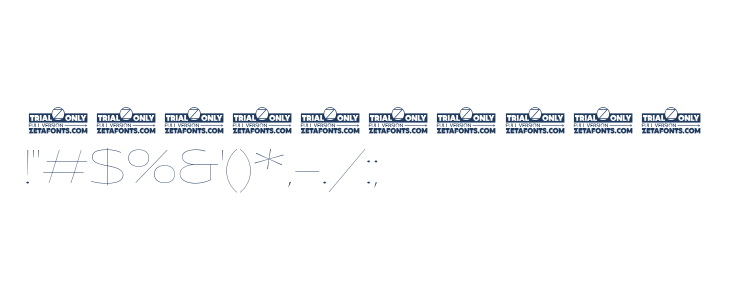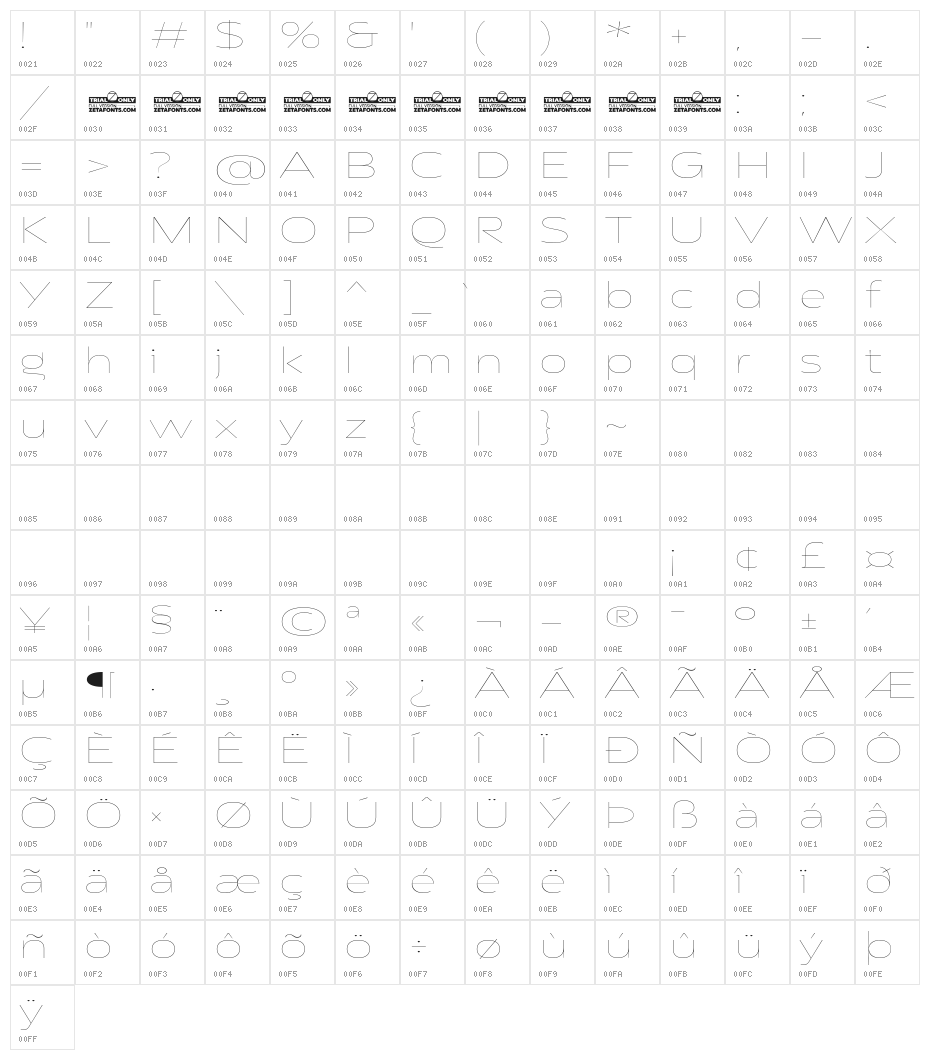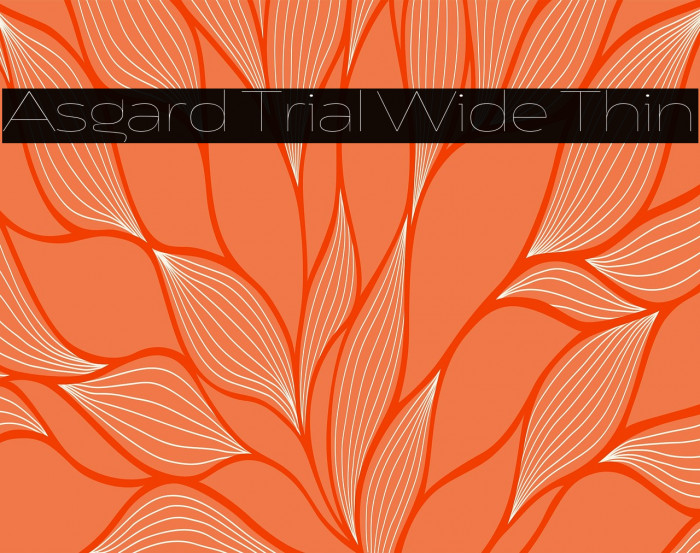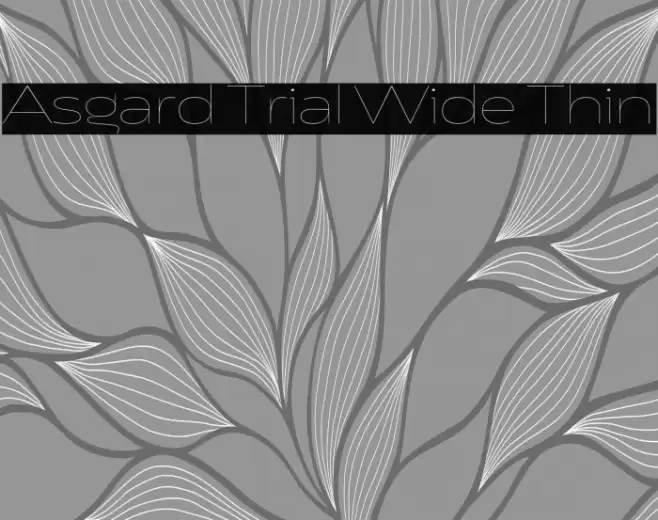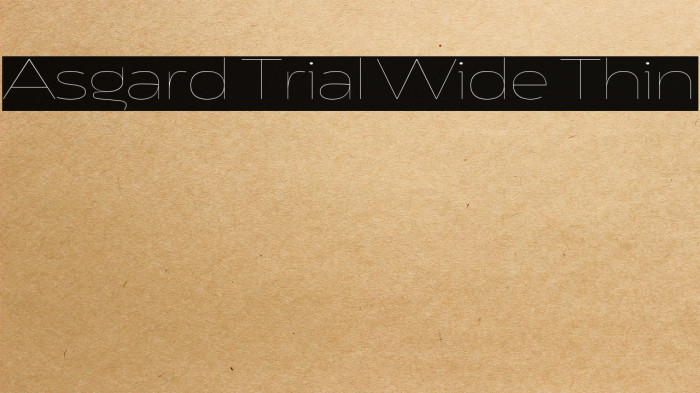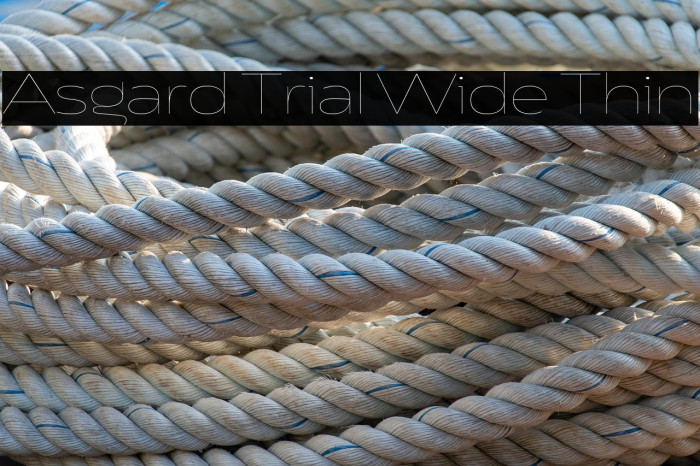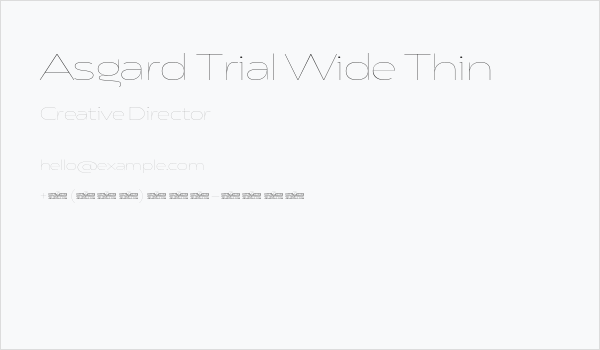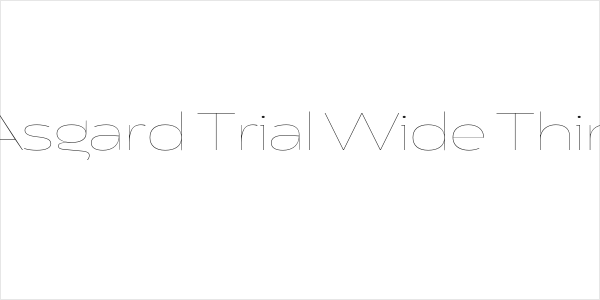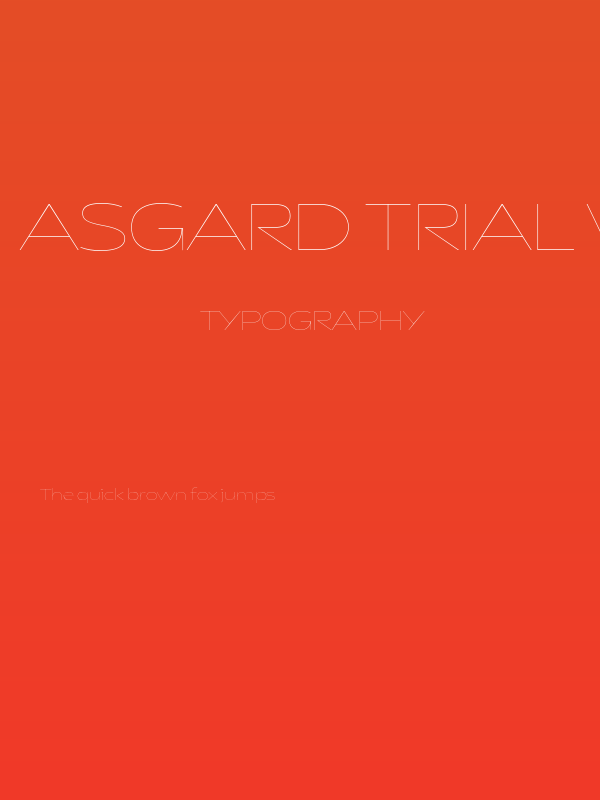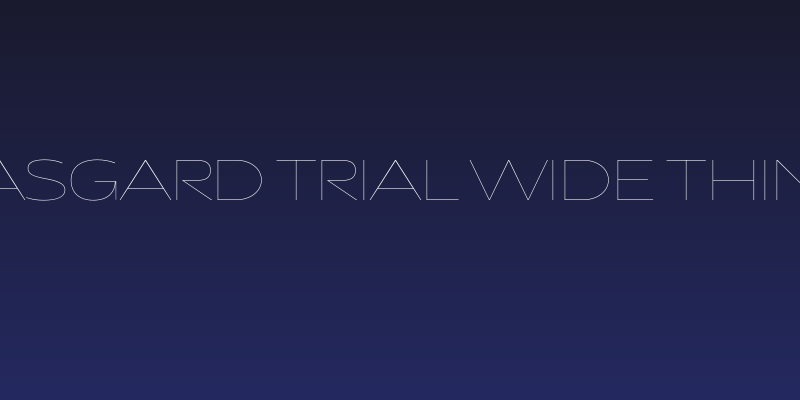
Asgard Trial Wide Thin Font
Asgard Trial Wide Thin Description
This font features a sleek, modern design with thin, elongated letterforms that convey a sense of elegance and sophistication. The characters are wide and spacious, providing a clean and airy aesthetic. The uppercase and lowercase letters maintain a consistent style, with smooth curves and sharp angles that enhance readability. The numerals and special characters are designed to match the overall minimalist theme, making this font suitable for a variety of applications. Its thin strokes and wide spacing give it a distinctive look that stands out in both digital and print media.
| Proposed Projects | Ideal for branding, editorial design, and minimalist web design projects. |